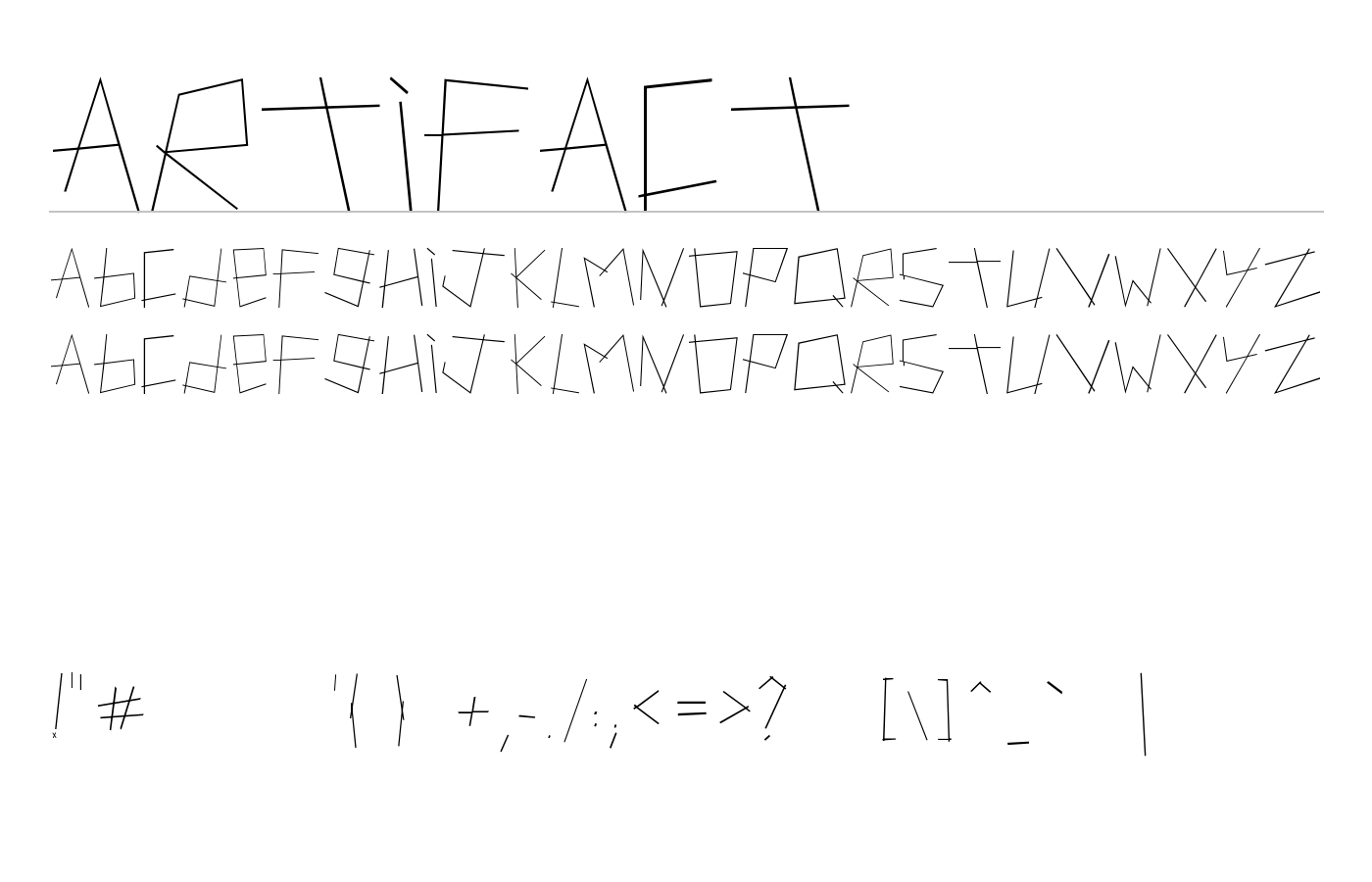
Artifact Font is a highly unique and playful sans serif typeface featuring extremely thin, almost hand-drawn lines with an angular, geometric vibe. Its irregular strokes and sketch-like character give it an artistic, casual feel, making it perfect for creative projects, informal branding, or designs that seek a quirky and distinctive touch. This font works best in display roles like headlines, logos, or posters where its unconventional style can truly stand out.
Artifact Font
About Artifact Font